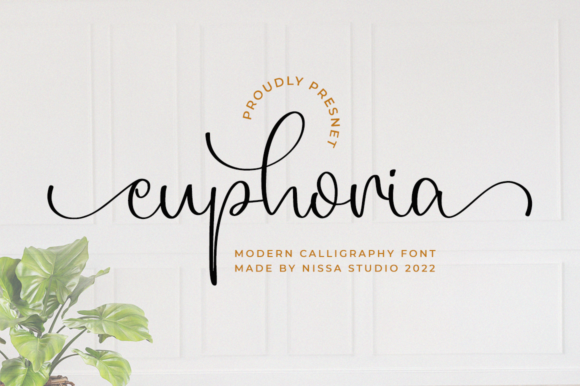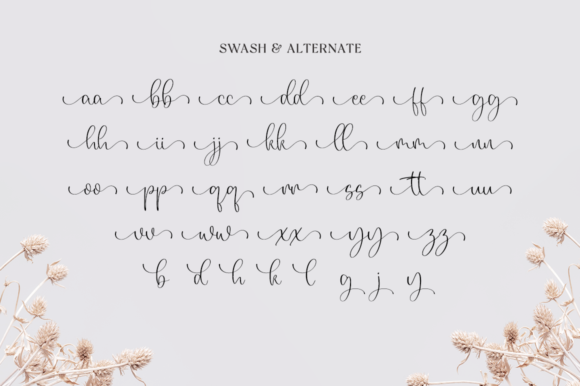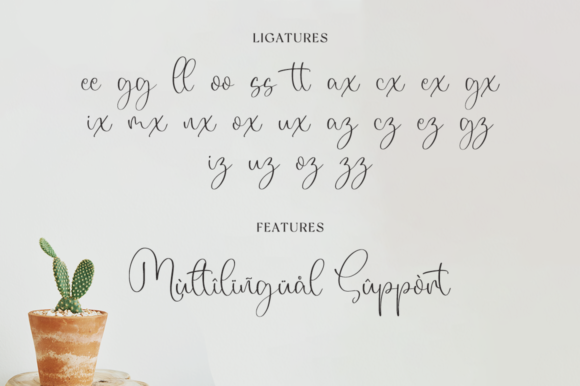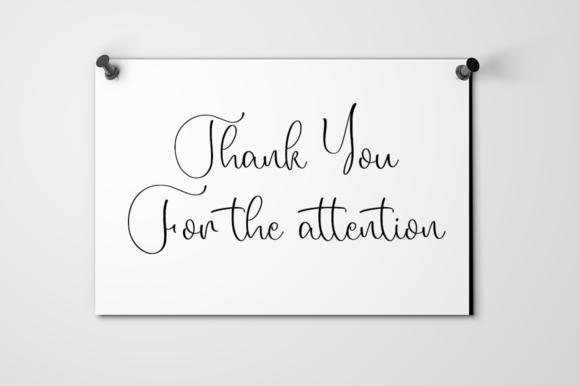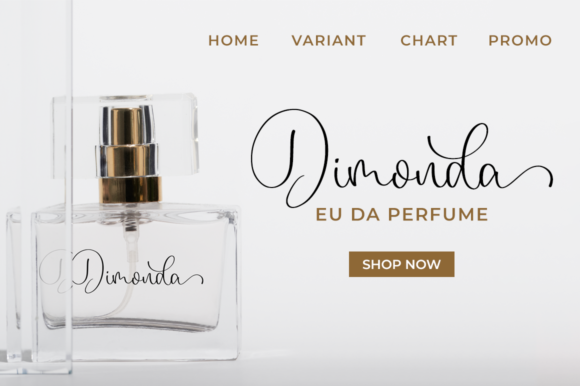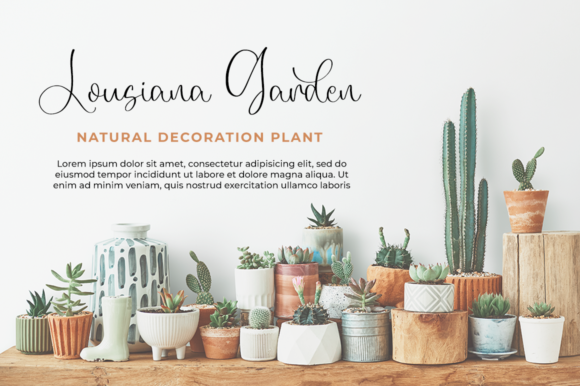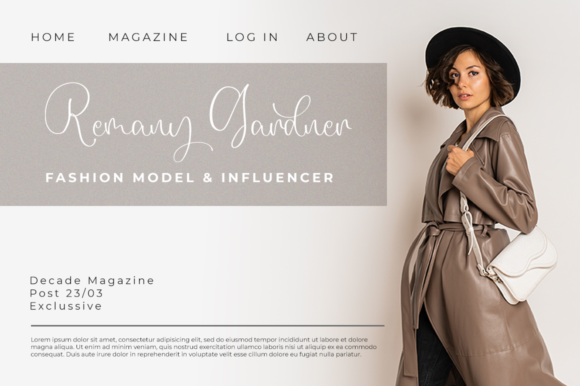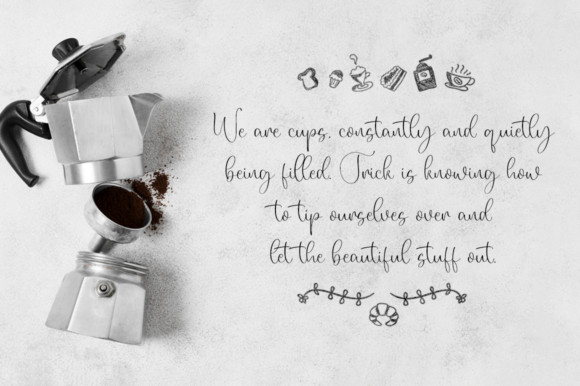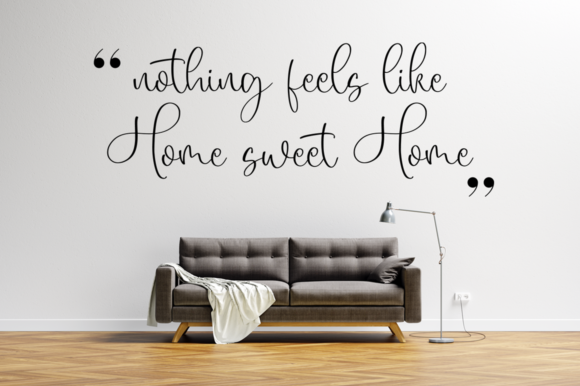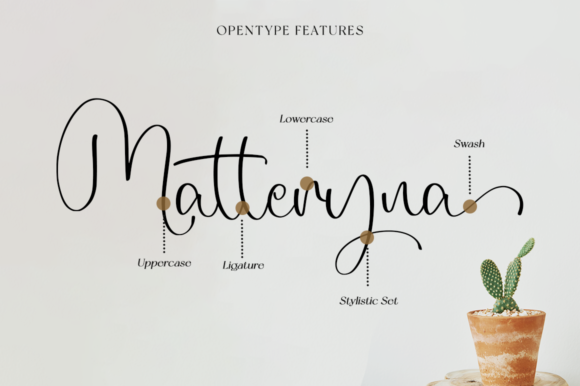
Euphoria Font
About Euphoria Font
Euphoria stands as a testament to elegance and sophistication in the realm of handwritten fonts. This exquisite typeface exudes beauty and distinctiveness, making it a perfect choice for a myriad of design projects. From the timeless allure of wedding invitations to the expressive charm of thank-you cards, the versatility of Euphoria knows no bounds. Its graceful strokes and polished appearance lend an air of sophistication to quotes, greeting cards, logos, business cards, and various other designs that benefit from a personalized touch.
The beauty of Euphoria lies in its ability to seamlessly blend gorgeous aesthetics with distinct character. Each letter carries an inherent grace, making the font not only visually appealing but also uniquely identifiable. The elegant script effortlessly captures attention, creating an immediate connection with the viewer and conveying a sense of refinement.
One of the standout features of Euphoria is its PUA encoding. This advanced encoding system opens up a world of possibilities for designers by granting easy access to a plethora of glyphs and swashes. This means that every curve and flourish within Euphoria is readily available, allowing for effortless customization and personalization. Designers can embrace creative freedom, ensuring that each project is a true reflection of their artistic vision.
Euphoria’s versatility is particularly evident in the context of wedding invitations, where its timeless elegance can set the tone for a memorable celebration. The font’s ability to convey a customized touch also shines through in business cards, creating a lasting impression of professionalism with a personal flair. Whether it’s the delicate curves in quotes or the subtle charm in logos, Euphoria brings a level of sophistication that transforms ordinary designs into extraordinary expressions of style.
In the world of design, where personalization is key, Euphoria stands out as an elegant handwritten font that goes beyond mere typography. It becomes a partner in the creative process, adapting seamlessly to the unique demands of each project. As you integrate Euphoria into your design toolkit, you’ll discover its capacity to elevate every endeavor, adding a touch of grace and distinctiveness to every stroke, curve, and flourish. Let Euphoria be the signature touch that transforms your designs into timeless works of art.